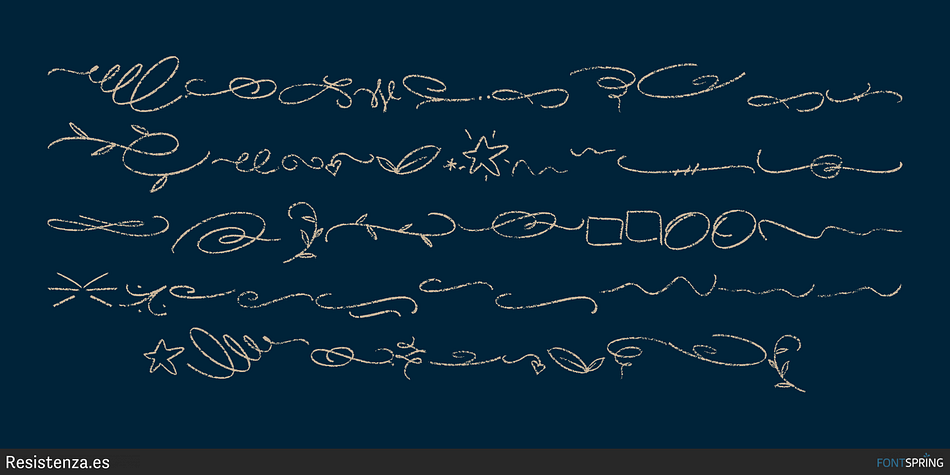
Designed by Giuseppe Salerno and Paco González, Sunday Morning is a multiple classification font family. This typeface has six styles and was published by Resistenza.es.
Sunday Morning Swashes
Easy like a Sunday Morning… with the new Sunday Morning Font Duo featuring a smooth signature-style script and an elegant wide Sans Serif Font specially designed to get along.
THE SCRIPT : Designed with a crayon to get the grain texture from this drawing technique and captivate this natural feeling to your designs. This subtle texture imperfections will add a more realistic feeling to your text.
THE SANS : Perfect for headlines, weddings cards, instagram posts, product design, stationery and logos
Sunday Morning is a versatile sans serif with a wide shape to add that strenghts to your layouts